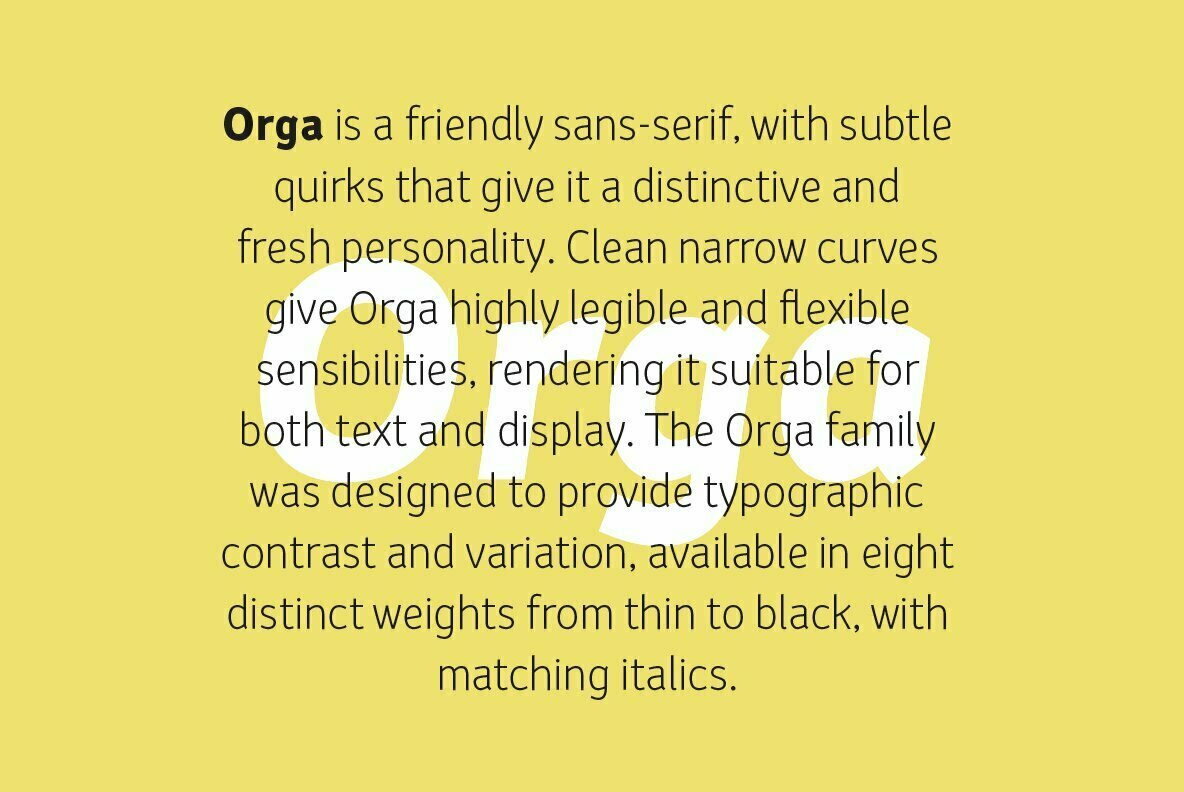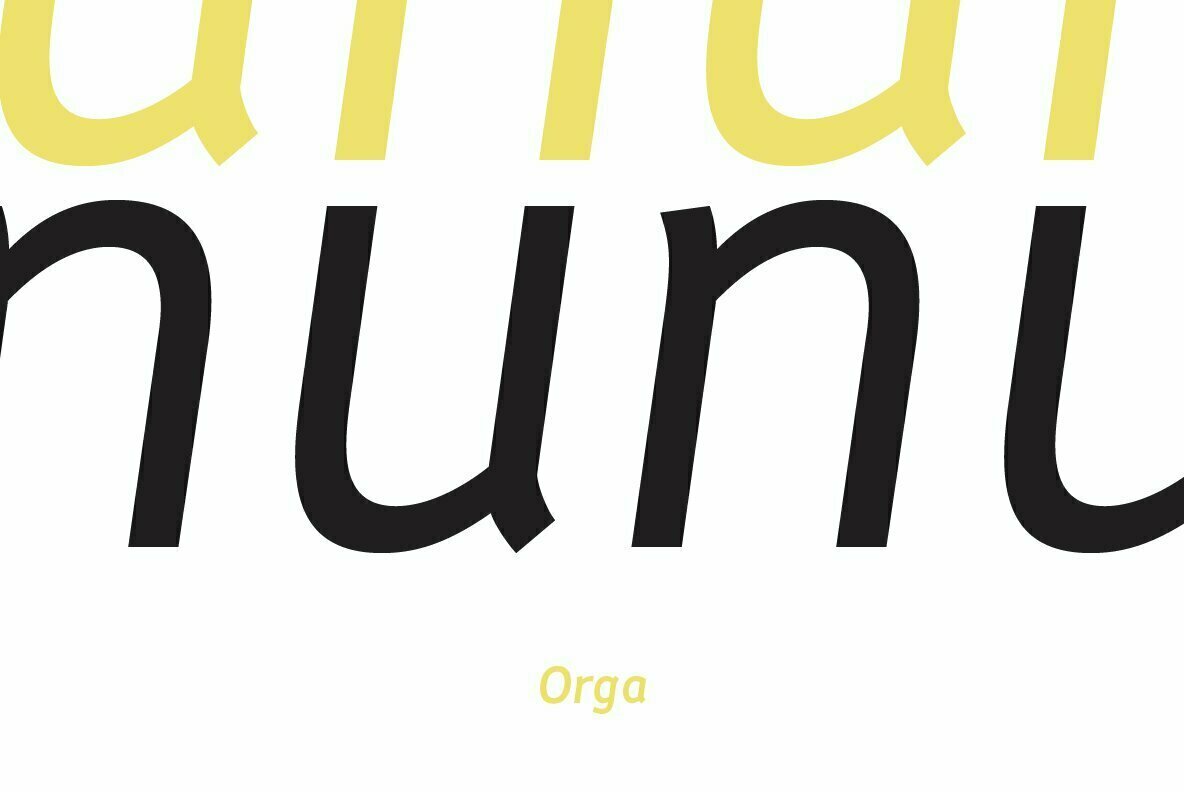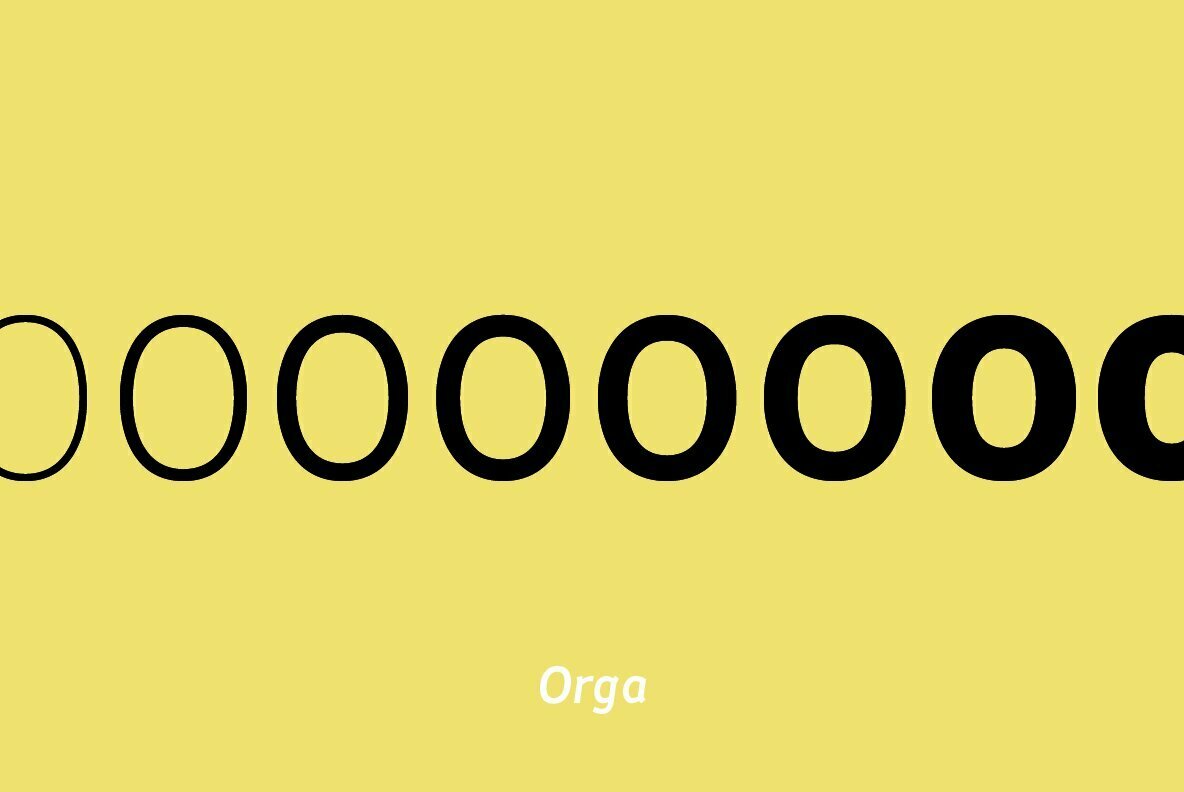
Orga Font
Orga is a friendly sans-serif, with subtle quirks that give it a distinctive and fresh personality. Clean narrow curves give Orga highly legible and flexible sensibilities, rendering it suitable for both text and display. The Orga family was designed to provide typographic contrast and variation, available in eight distinct weights from thin to black, with matching italics. Orga has a standard character set, with coverage for Western European languages plus a standard set of OpenType features. Orga was designed by Conor Nolan and Bobby Tannam, with David Wall.